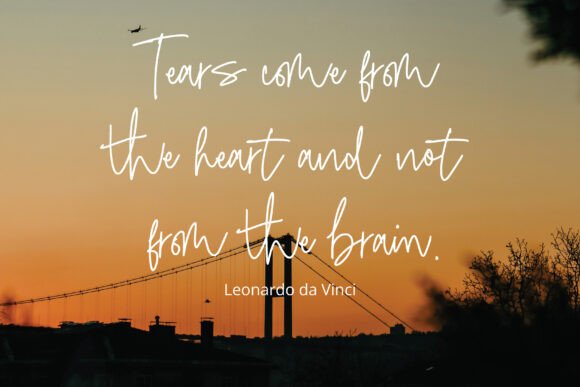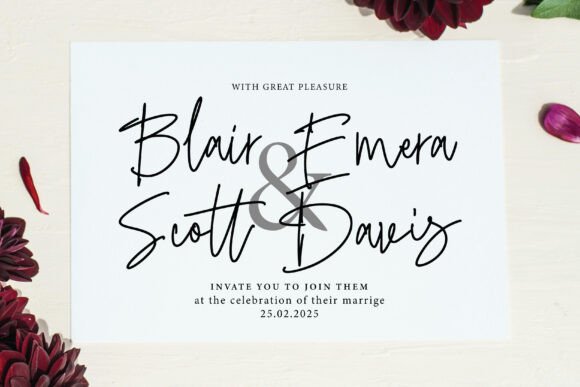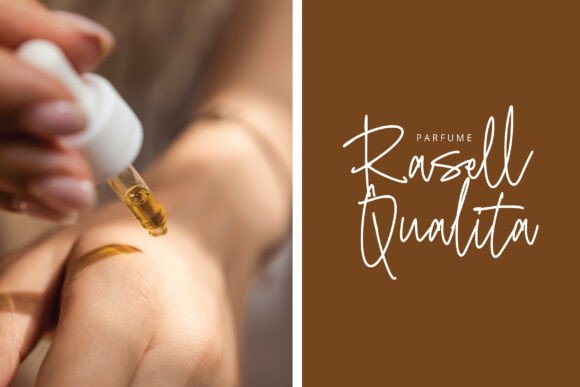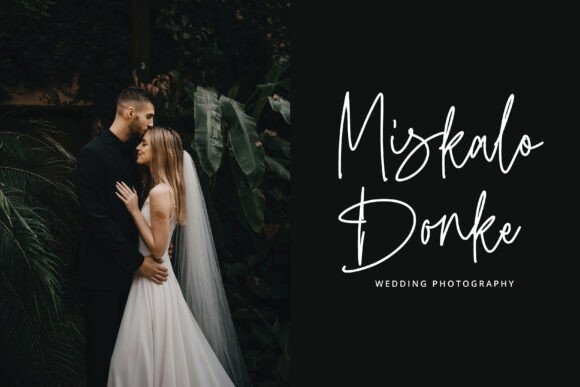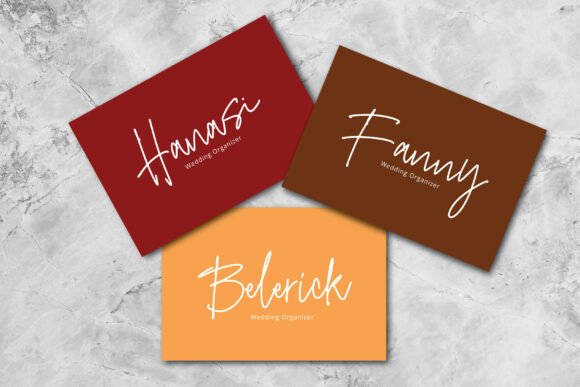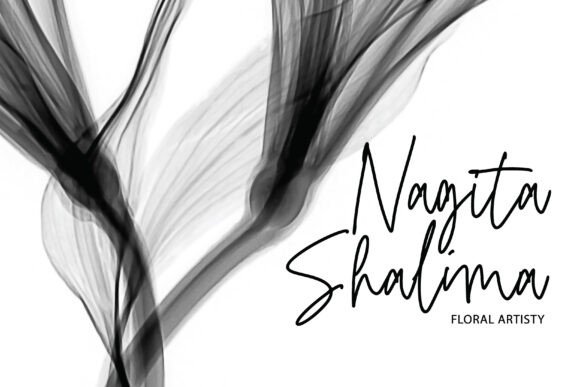
Gracelin Signature Font: Elevate Your Design with Elegance
In the world of typography, a signature font can make all the difference in creating a lasting impression. For designers and crafters seeking a touch of sophistication and elegance, the Gracelin Signature Font is an exceptional choice. This delicate handwritten font boasts a graceful monoline style, perfect for crafting logos, personal branding, and refined stationery that exudes a modern signature feel with a refined, feminine touch.
The Essence of Gracelin Signature Font
Gracelin Signature Font is characterized by its smooth strokes and natural flow, which collectively contribute to its unique charm. The monoline style, known for its consistent line width, gives the font a sleek and contemporary look. This makes it an ideal choice for projects that demand a high level of sophistication and poise. Whether you’re designing a logo, creating personal branding materials, or crafting elegant stationery, Gracelin Signature Font is sure to elevate your work.
Key Features of Gracelin Signature Font
- Delicate Handwritten Style: Gracelin Signature Font features a delicate handwritten style that adds a personal touch to any design.
- Graceful Monoline Style: The font’s monoline style ensures a consistent and sleek appearance, perfect for creating elegant designs.
- Smooth Strokes and Natural Flow: The smooth strokes and natural flow of the font give it a modern signature feel that’s both refined and feminine.
- Elegant and Sophisticated: Gracelin Signature Font is designed to bring an air of elegance and sophistication to your designs, making it perfect for high-end projects.
Applications of Gracelin Signature Font
The versatility of Gracelin Signature Font makes it suitable for a wide range of applications. Here are some of the ways you can use this beautiful font:
- Logo Design: Create a lasting impression with a logo that features the elegant Gracelin Signature Font.
- Personal Branding: Use the font to develop a cohesive and sophisticated personal brand that stands out.
- Stationery Design: Elevate your stationery designs with a font that exudes elegance and refinement.
- Wedding and Event Design: Add a touch of sophistication to wedding invitations, event planners, and other related design materials.
Why Choose Gracelin Signature Font?
With numerous fonts available, why should you choose Gracelin Signature Font for your projects? Here are a few compelling reasons:
- Unique and Distinctive: Gracelin Signature Font offers a unique and distinctive style that sets it apart from more common fonts.
- High Versatility: The font’s elegance and sophistication make it suitable for a wide range of projects and applications.
- Easy to Read: Despite its delicate nature, Gracelin Signature Font remains highly legible, ensuring your message is conveyed clearly.
- Timeless Appeal: The font’s classic monoline style ensures it won’t go out of fashion, making it a valuable addition to your font library.
Tips for Using Gracelin Signature Font Effectively
To get the most out of Gracelin Signature Font, consider the following tips:
- Pair with Complementary Fonts: Combine Gracelin Signature Font with simpler fonts to create visual interest and hierarchy in your designs.
- Adjust Letter Spacing: Fine-tune the letter spacing to enhance the font’s natural flow and ensure optimal readability.
- Experiment with Colors: While the font itself is elegant, experimenting with different colors can further enhance its beauty and suitability for your project.
In conclusion, Gracelin Signature Font is a versatile and elegant typeface that can add a touch of sophistication to any design project. Its unique blend of delicate handwritten style and graceful monoline characteristics makes it an excellent choice for designers and crafters looking to create elegant logos, personal branding materials, and refined stationery. With its smooth strokes, natural flow, and timeless appeal, Gracelin Signature Font is sure to become a cherished addition to your design toolkit.